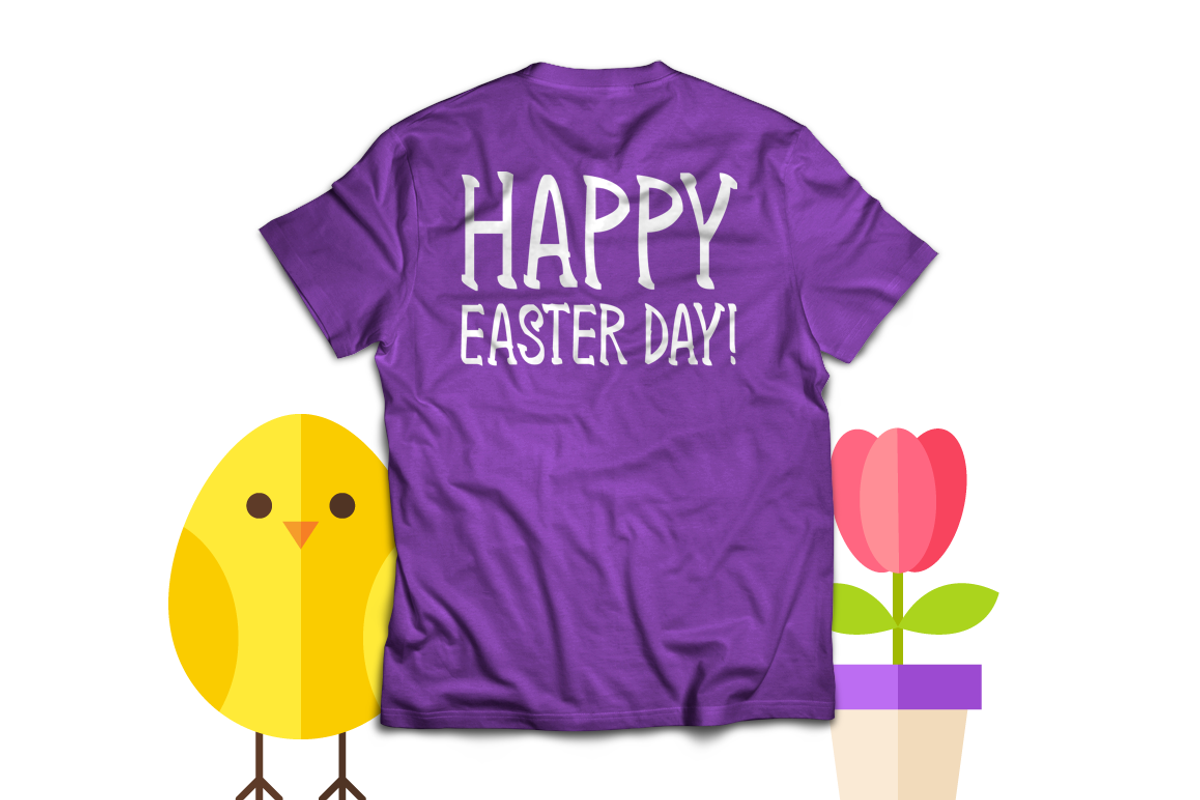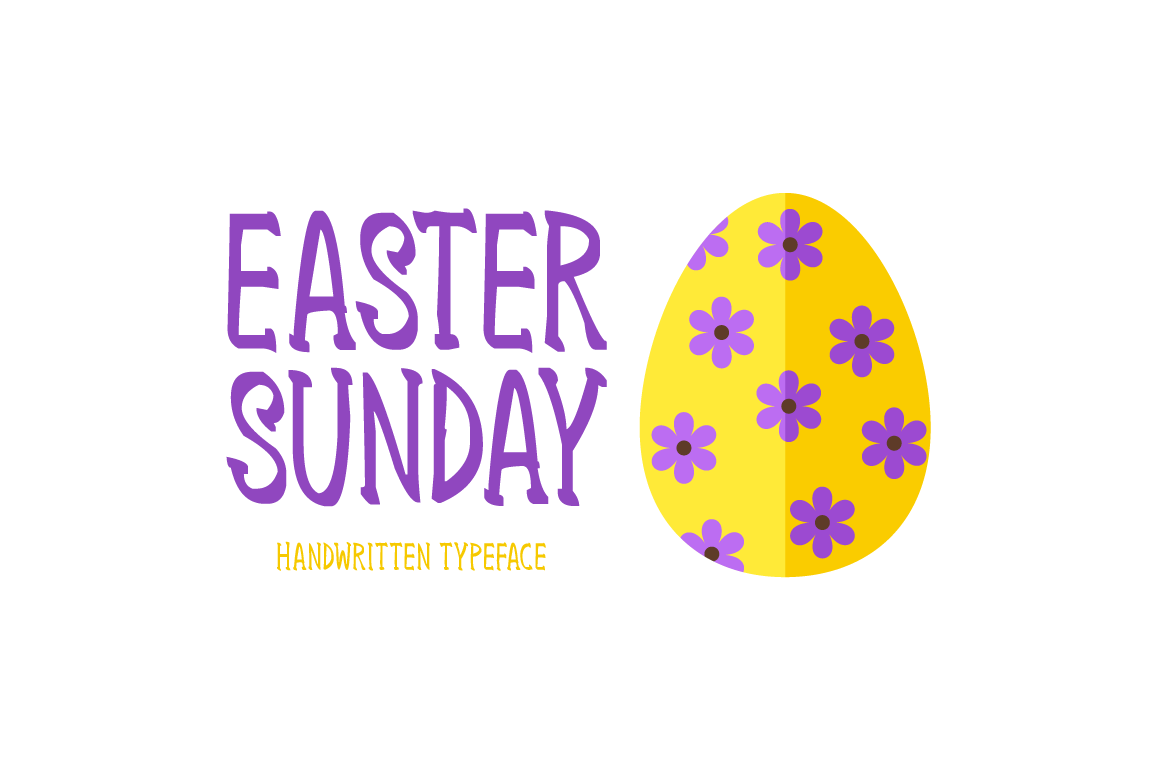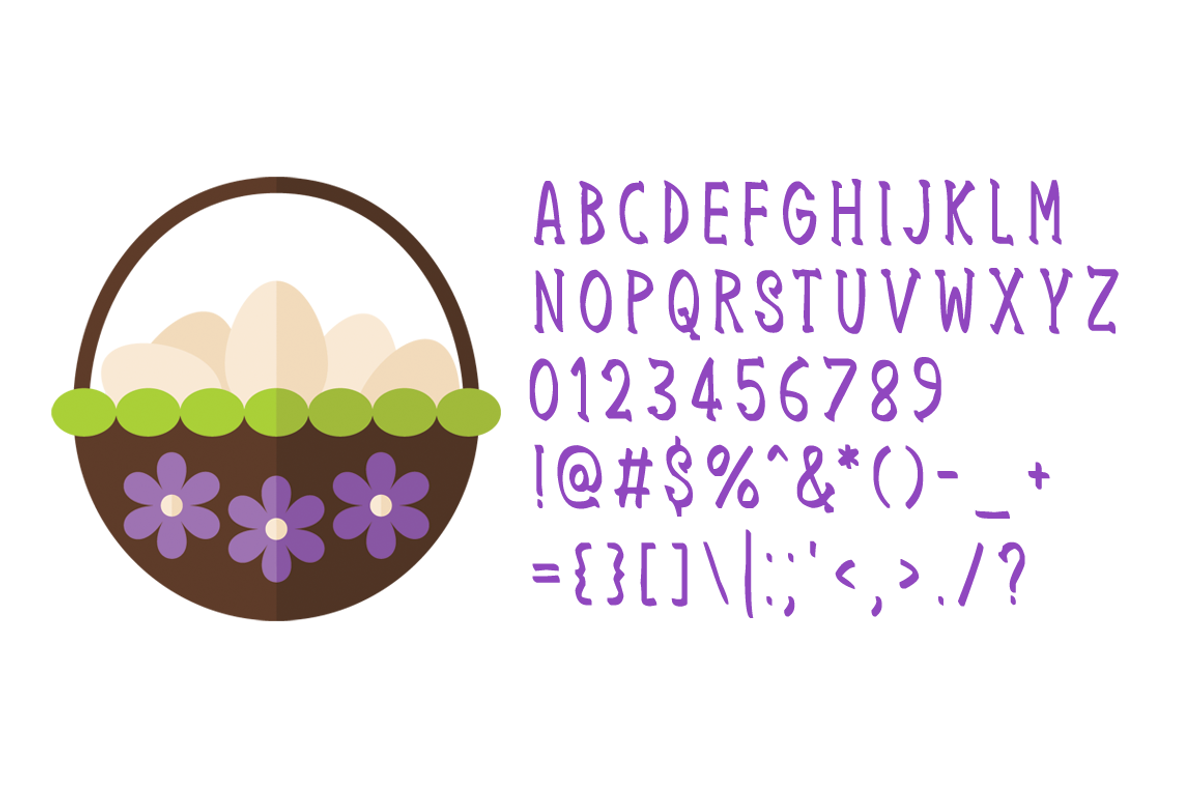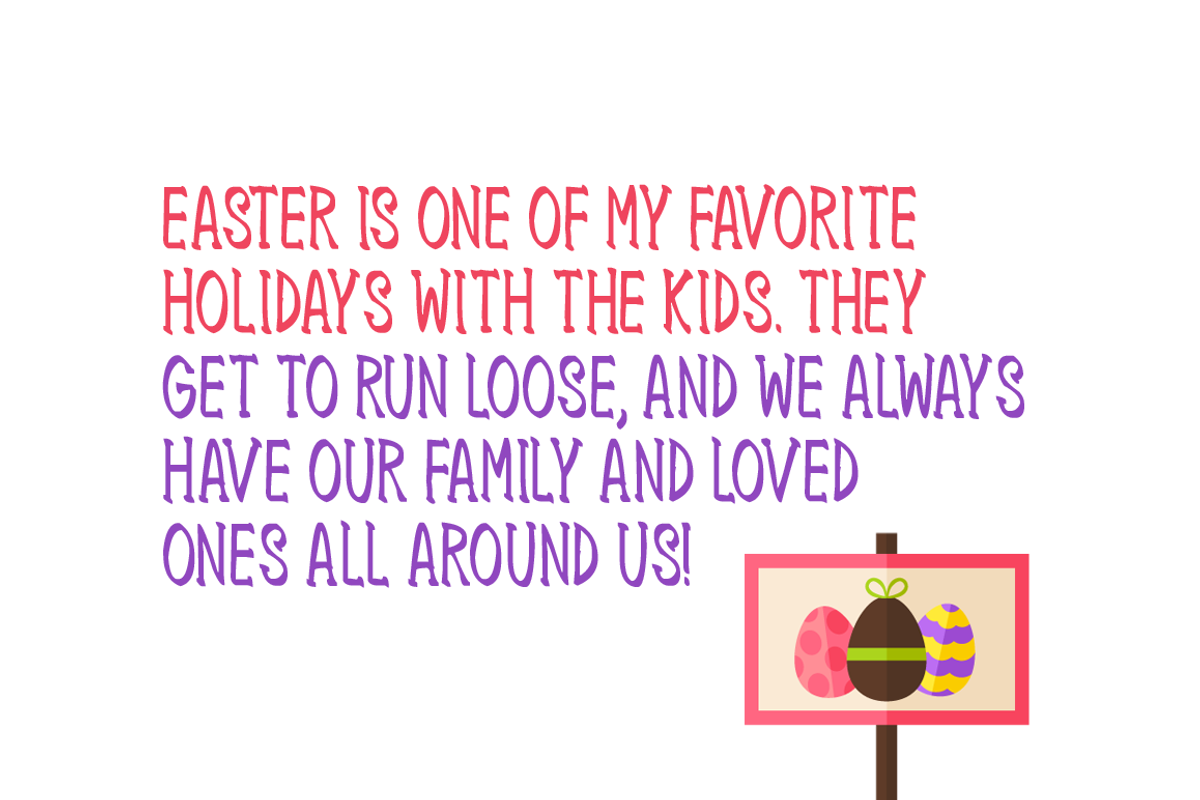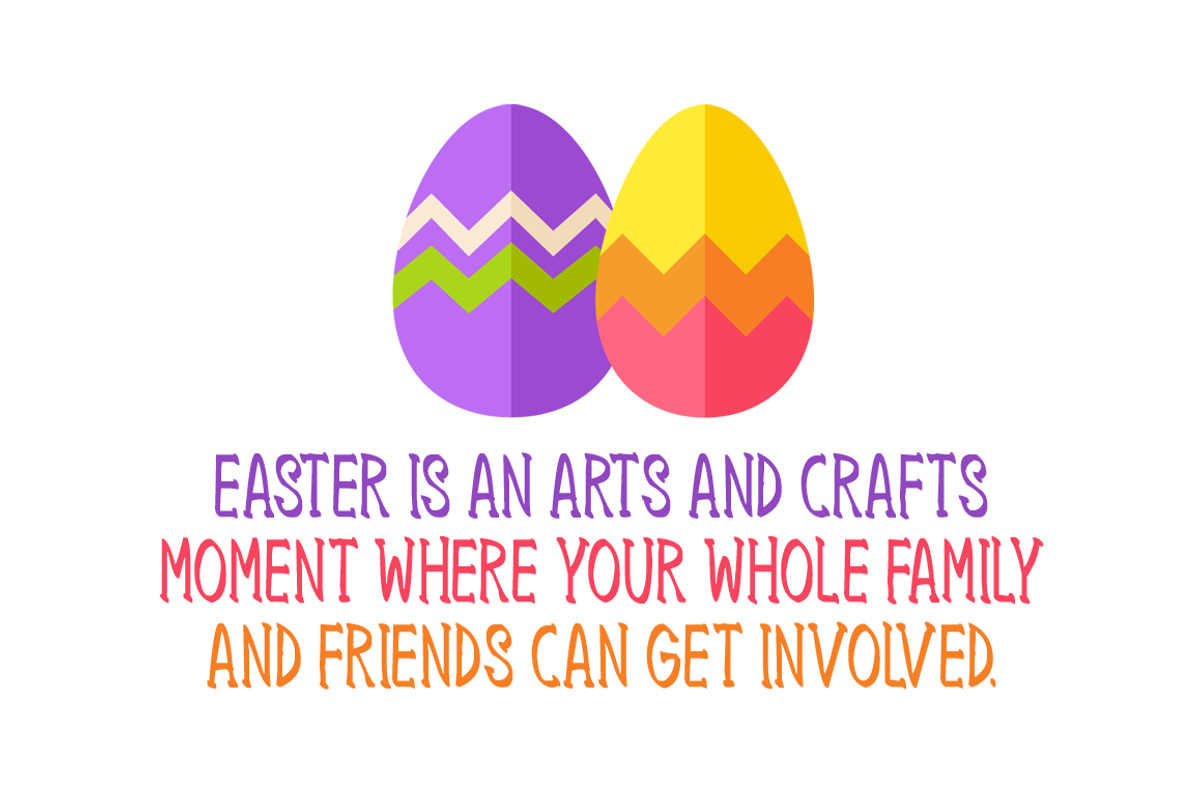
Easter Sunday Typeface
Introducing Easter Sunday!
Easter Sunday is a brand new handwritten font. Easter Sunday is perfectly suited for stationery, logos, t-shirt, paper, print design, website header, photo frame, flyer, music cover, poster, image slider and much more.